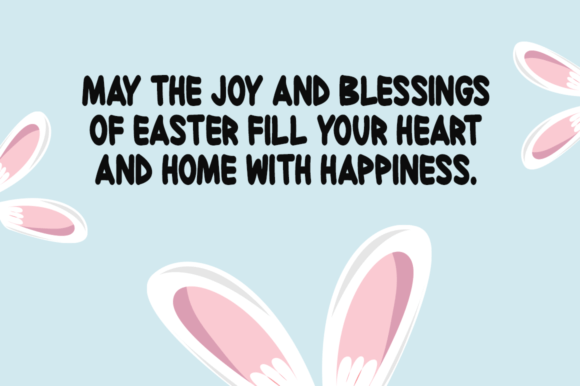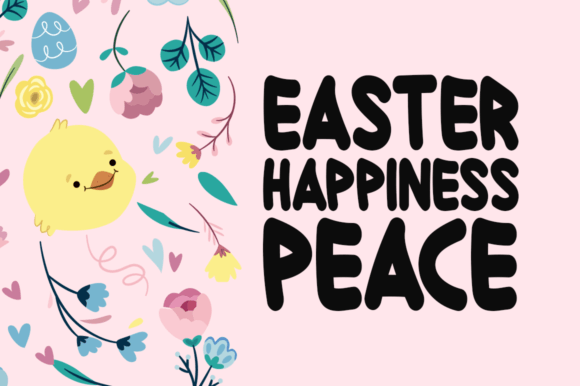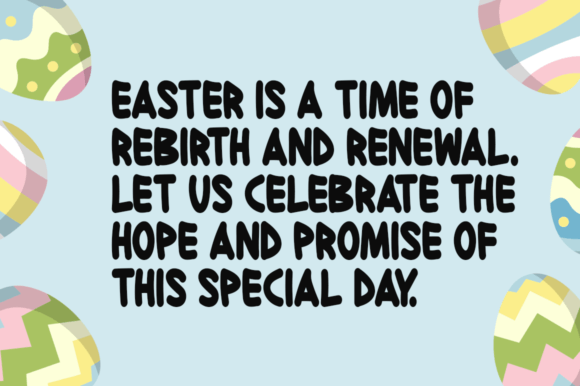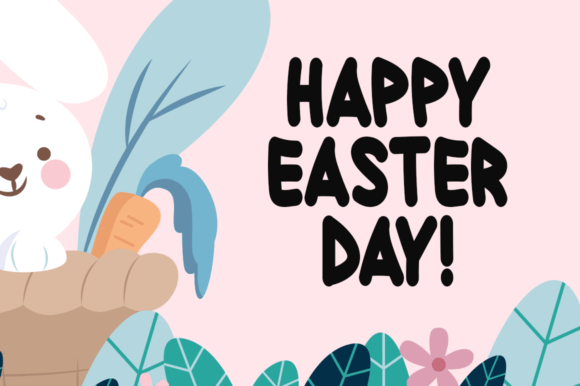
Easter Meadow Font: Elevate Your Designs with a Striking and Bold Display Font
Are you looking for a font that can make your designs stand out from the crowd? Look no further than the Easter Meadow Font. This striking, bold display font is perfect for adding a touch of personality to your creative projects. With its unique and eye-catching design, Easter Meadow Font can easily be matched to an incredibly large set of projects, making it a versatile and valuable addition to your font collection.
What Makes Easter Meadow Font So Special?
Easter Meadow Font is a one-of-a-kind display font that boasts a bold and striking design. Its unique lettering style is perfect for making a statement, and its versatility makes it suitable for a wide range of projects. Whether you’re working on a graphic design project, crafting a handmade card, or creating a digital masterpiece, Easter Meadow Font is sure to elevate your design and make it stand out.
Key Features of Easter Meadow Font
- Bold and Striking Design: Easter Meadow Font features a bold and striking design that is sure to grab attention.
- Versatile: This font can be used for a wide range of projects, from graphic design to crafting and digital art.
- Easy to Read: Despite its bold design, Easter Meadow Font is easy to read and understand, making it perfect for use in titles, headings, and other display text.
- Unique Lettering Style: The unique lettering style of Easter Meadow Font sets it apart from other fonts and makes it perfect for adding a touch of personality to your designs.
How to Use Easter Meadow Font in Your Designs
Easter Meadow Font is incredibly easy to use and can be incorporated into your designs in a variety of ways. Here are a few ideas to get you started:
- Graphic Design Projects: Use Easter Meadow Font as a title or heading font in your graphic design projects, such as brochures, posters, and flyers.
- Handmade Cards and Crafts: Add a touch of personality to your handmade cards and crafts with Easter Meadow Font.
- Digital Art: Use Easter Meadow Font to add text to your digital art, such as illustrations, paintings, and photographs.
- Signs and Banners: Use Easter Meadow Font to create eye-catching signs and banners for events, sales, and promotions.
Tips for Getting the Most Out of Easter Meadow Font
Here are a few tips for getting the most out of Easter Meadow Font:
- Experiment with Different Colors: Easter Meadow Font looks great in a variety of colors, so don’t be afraid to experiment and find the perfect color for your design.
- Use it as a Title Font: Easter Meadow Font is perfect for use as a title font, so try using it to add a bold and striking title to your design.
- Pair it with Other Fonts: Easter Meadow Font pairs well with a variety of other fonts, so try experimenting with different font combinations to find the perfect look for your design.
Easter Meadow Font is a striking, bold display font that is perfect for adding a touch of personality to your creative projects. With its unique and eye-catching design, versatility, and ease of use, Easter Meadow Font is a valuable addition to any font collection. Whether you’re a designer, crafter, or digital artist, Easter Meadow Font is sure to elevate your designs and make them stand out from the crowd.